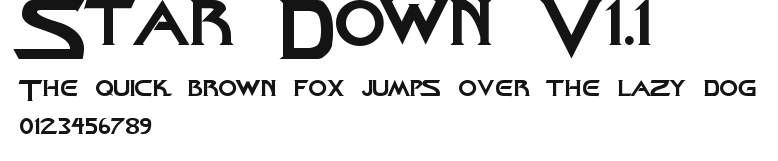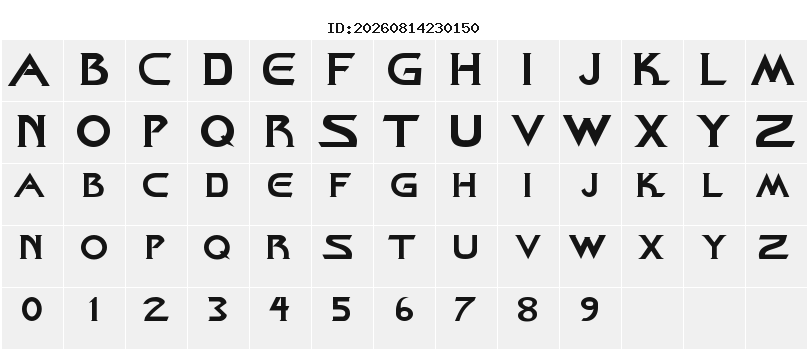
Star Down V1.1 Preview
• Font Name: Star Down V1.1
• Full Font Name: Star Down V1.1
About Star Down V1.1.ttf
Star Down V1.1.ttf is a modern, elegant sans-serif font designed for ultimate readability and visual harmony. Perfect for branding, headlines, web design, and print materials.